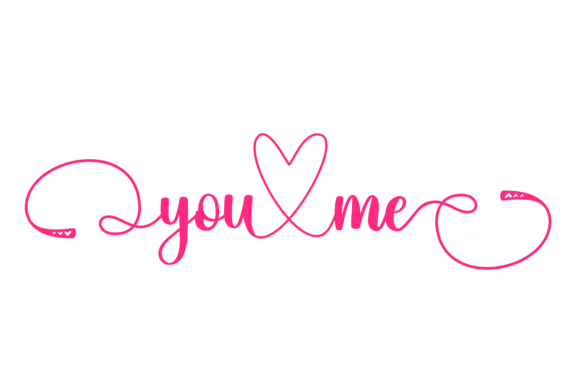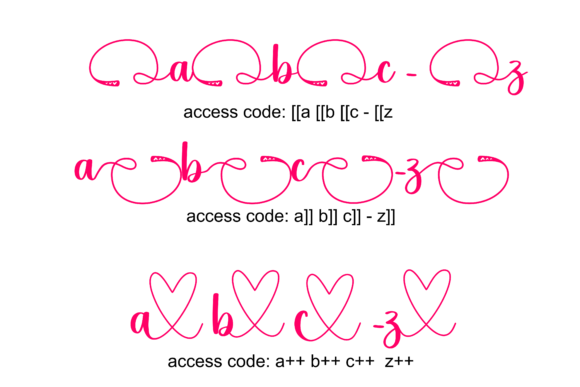
Heart Font
Heart is a sweet and cursive handwritten font. This gentle font will look gorgeous on a variety of design ideas. It will add a joyful and romantic touch to each of your projects!